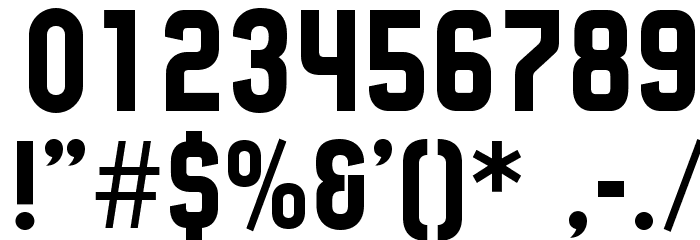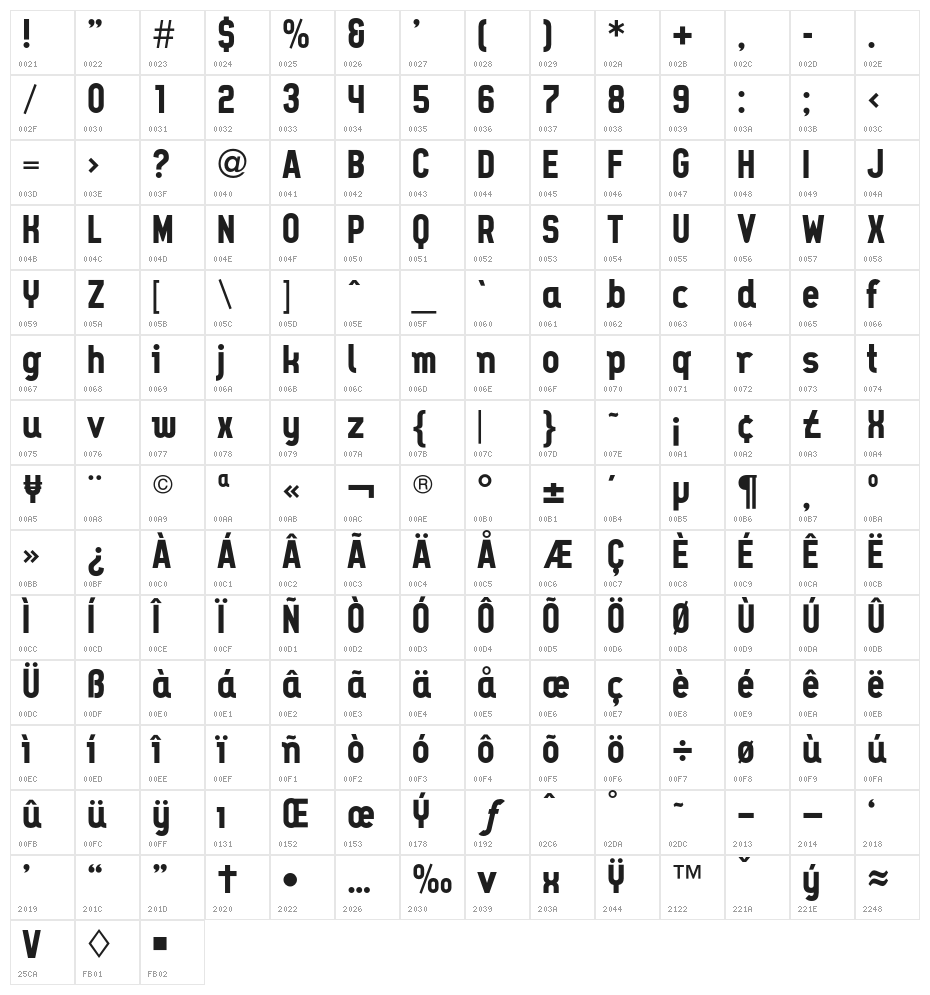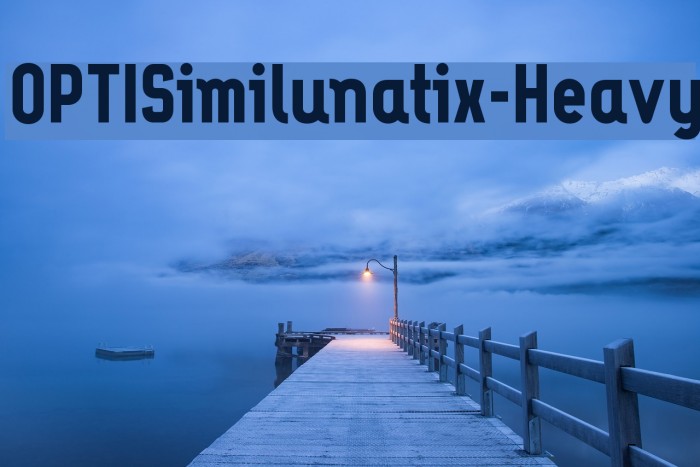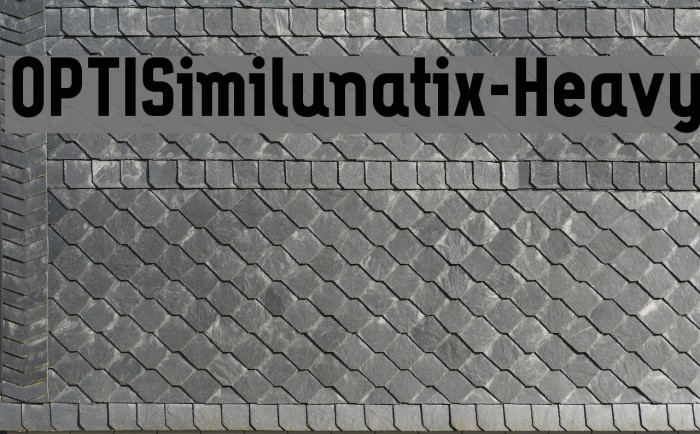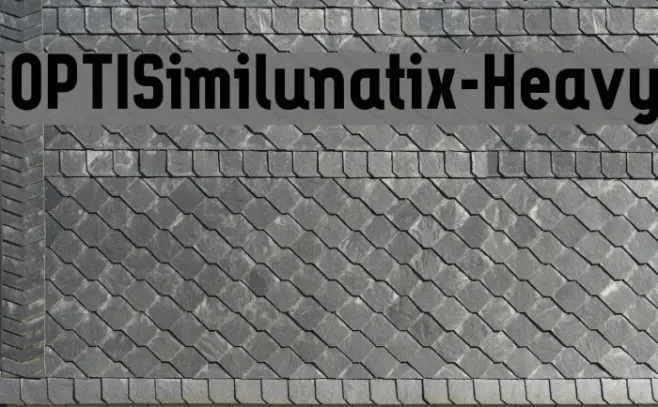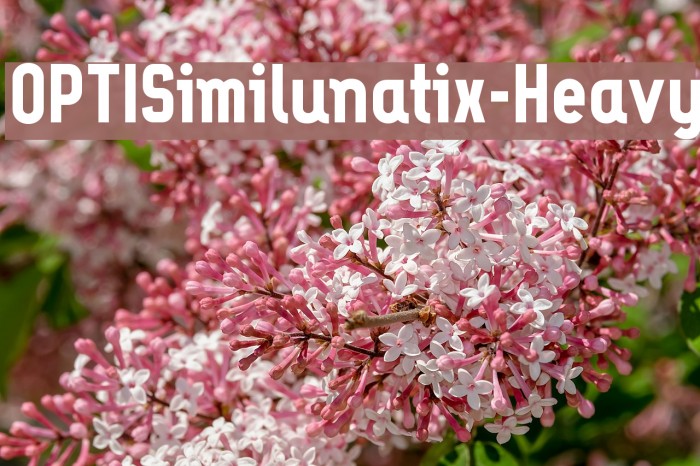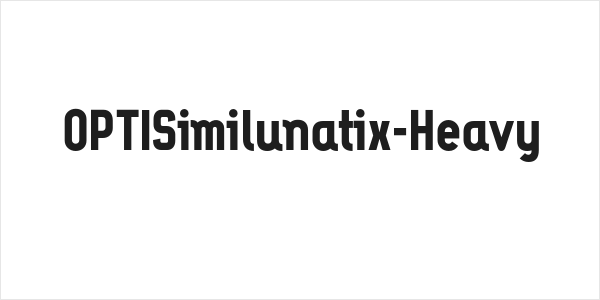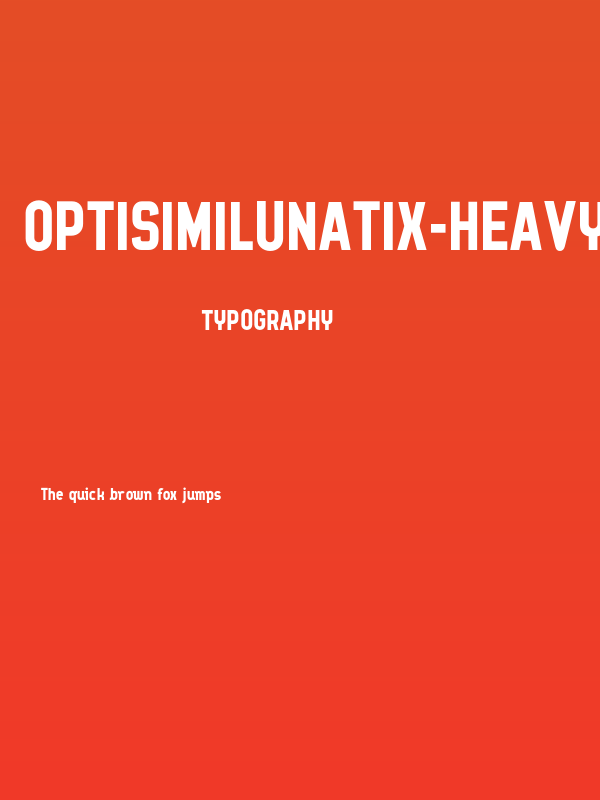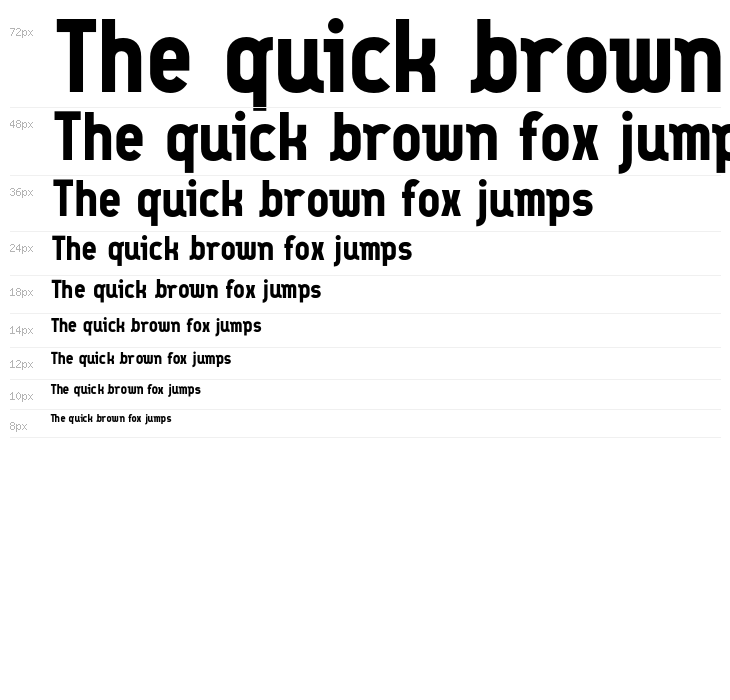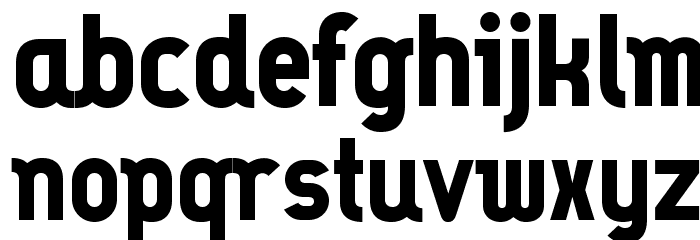
OPTISimilunatix-Heavy Font
OPTISimilunatix-Heavy Description
This font exhibits a bold and assertive style, characterized by thick strokes and a strong presence. The uppercase letters are robust and commanding, while the lowercase letters maintain a consistent weight, providing a harmonious balance. The numerals are clear and legible, designed to stand out with their substantial form. Special characters are crafted with the same boldness, ensuring uniformity across all glyphs. The overall design is modern and impactful, making it suitable for attention-grabbing headlines and statements.